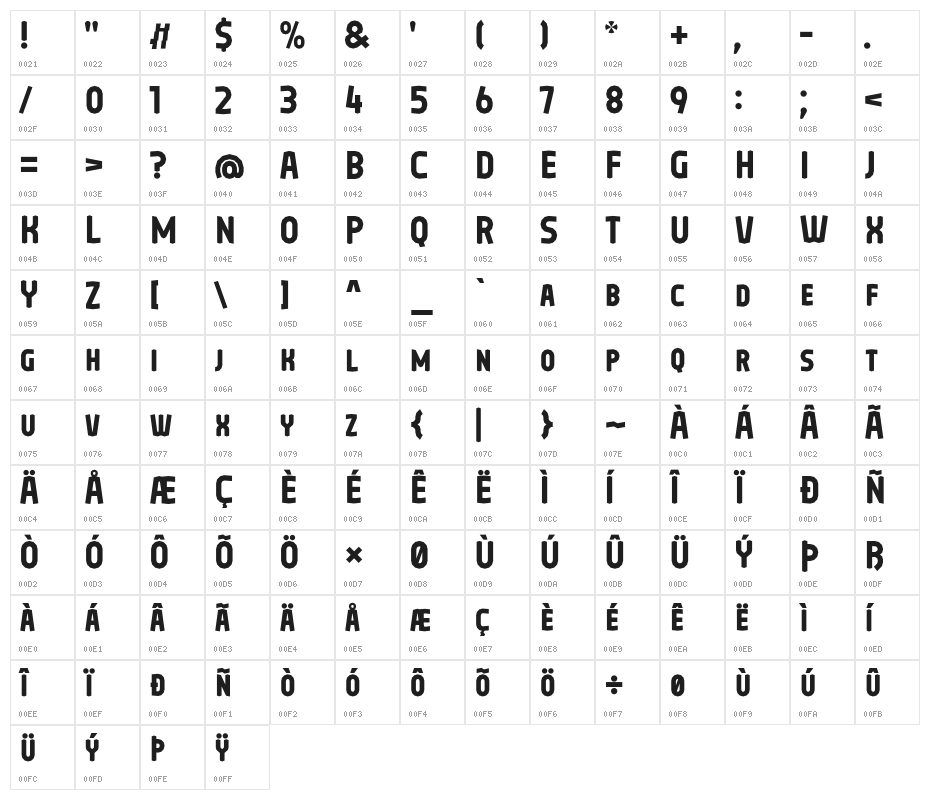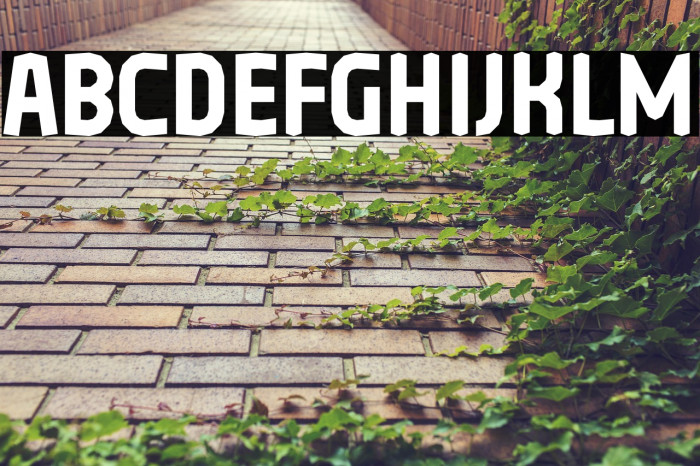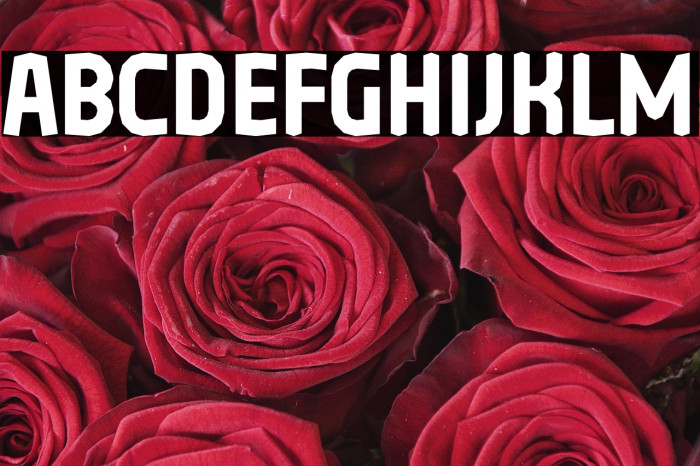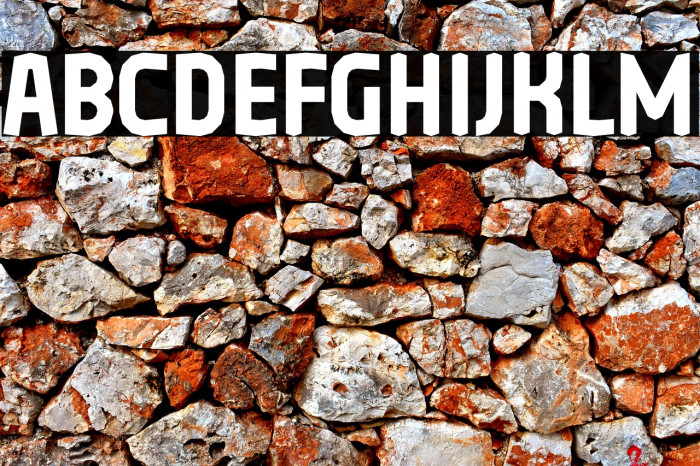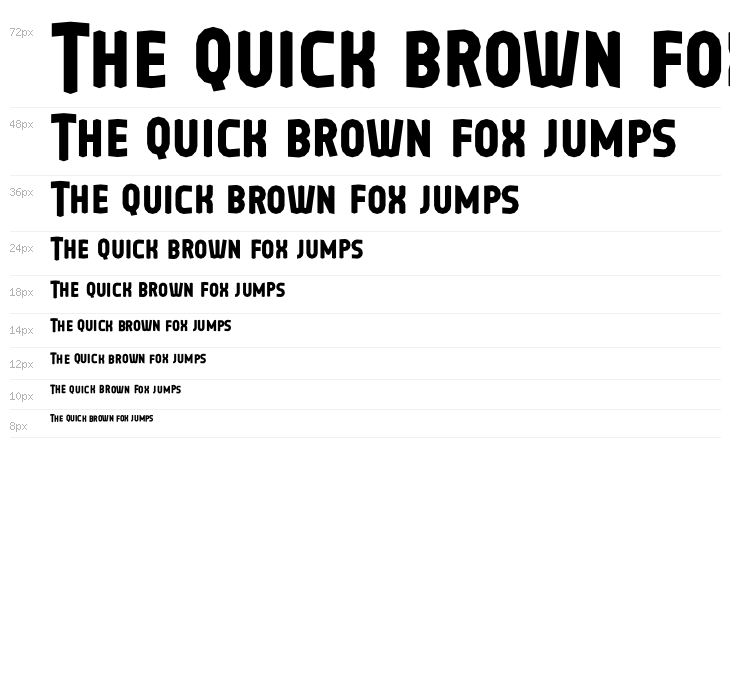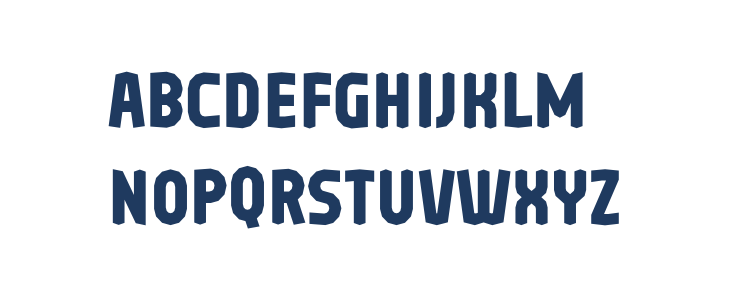
Oreta Font
Oreta Description
This font features a bold and striking design with angular, geometric shapes that create a strong visual impact. The uppercase and lowercase letters maintain a consistent width, giving the typeface a uniform appearance. The numbers and special characters follow the same bold style, ensuring cohesion across all elements. The font's thick strokes and sharp edges convey a sense of modernity and strength, making it suitable for attention-grabbing designs. Its unique character shapes add a distinctive touch, making it stand out in various applications.